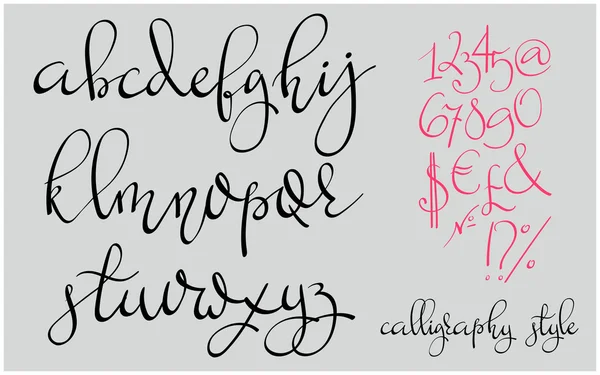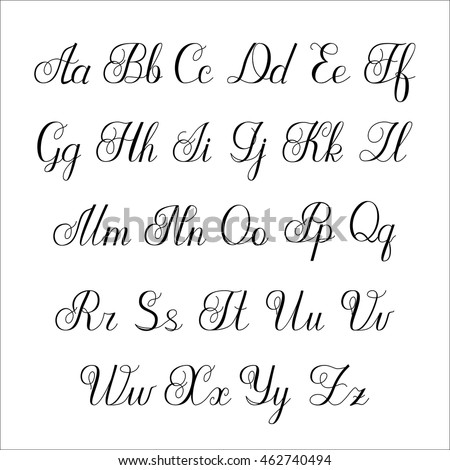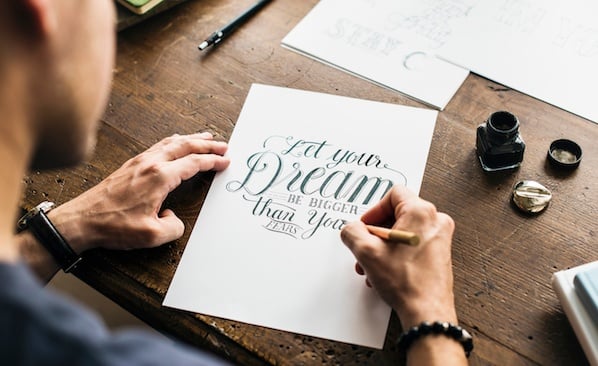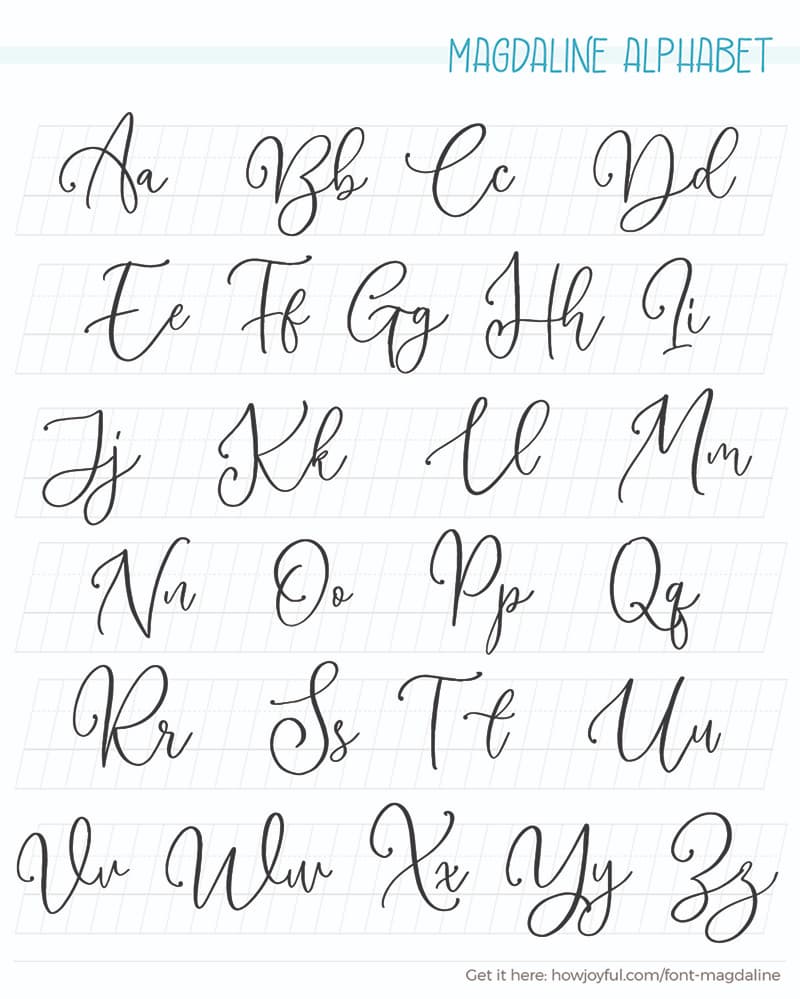
The writing is readable but is usually extravagant and embellished with flourishes.
It has flowing letters that will give your designs a unique and sweet look with many lovely caracters. See more ideas about calligraphy lettering hand lettering. Calligraphy alphabets from a to z letters in black in over 15 styles and samples which include uppercase and lowercase styles gothic stencils cursive romantic roman and more.
The main sub-styles are traditional calligraphy and modern. Alphabets created with special calligraphy fonts. The height of calligraphy was reached in the middle age where monks developed the narrow writing style called gothic allowing more words to fit on a single line as paper was expensive at the time.
It usually involves a nibbed pen or brush. To generate your custom text simple enter your letter or word in the box below choose options and generate your Free Calligraphy text letters instantly in graphic format. Calligraphy fonts a to z capital letters for beginners.
For more ideas see letter stencils stencil maker banner maker and calligraphy generator. Black Catthie font is perfect. Use these free diy fancy templates and clip art font for weddings anniversaries monograms decorations welcome signs etc.
A great selection of Calligraphy samples to print. Logos greeting cards a package design a brand identity craft design any DIY project book title wedding invitation packaging and more. Bitterlove font is perfect.
Also available are uppercase and lowecase calligraphy pdf charts to print below. Black Catthie is a Calligraphy Script font by Letterafa Studio. About abc capital letters font alphabet and typography 519406.
Calligraphy Alphabet Images Stock Photos Vectors Shutterstock. List of styles and samples in alphabetical order. Although Z is not the most common letter for words in English some of the possible gifts starting.